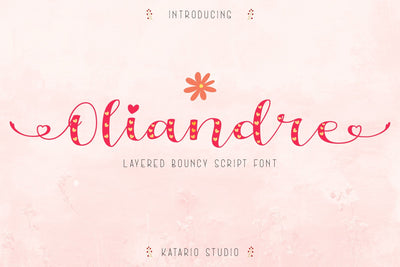
Oliandre | Lovely Layered Bouncy Font
Introducing Oliandre - A Layered Bouncy Script Font. This type of font perfectly made to be applied especially in invitation, wedding cards, fashion, make up, stationery, crafting items, greeting cards, book, novels, brand name, labels or any type of advertising purpose. This font has a lot of swashes and ligature wich you can play around and creates beautiful projects.